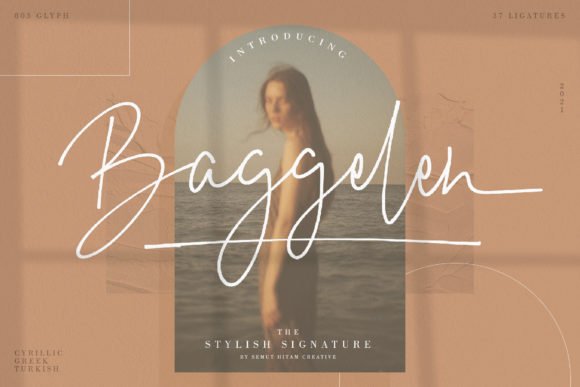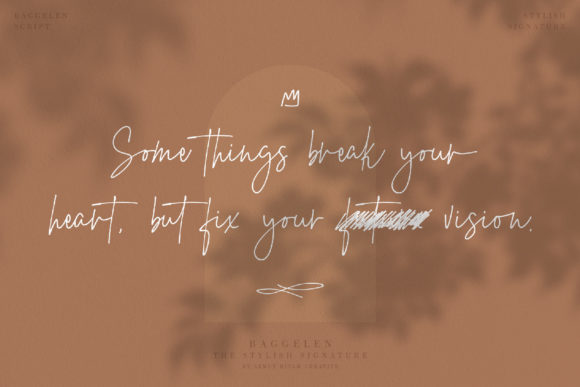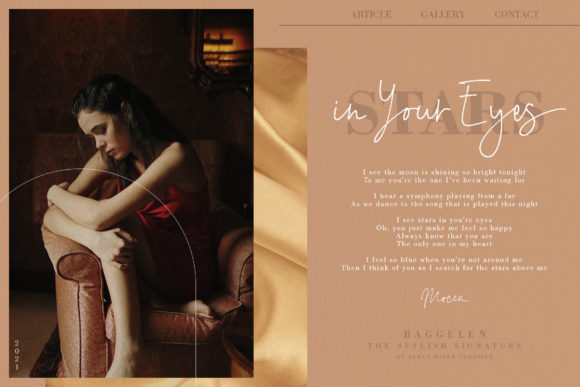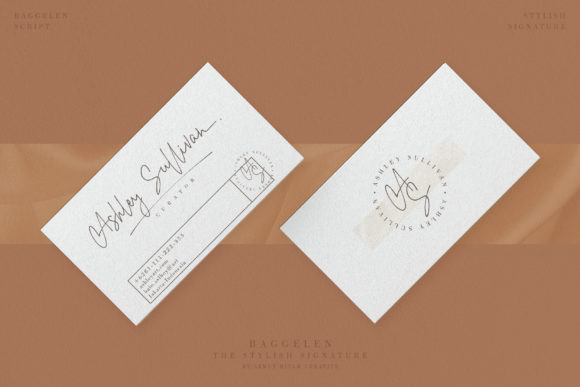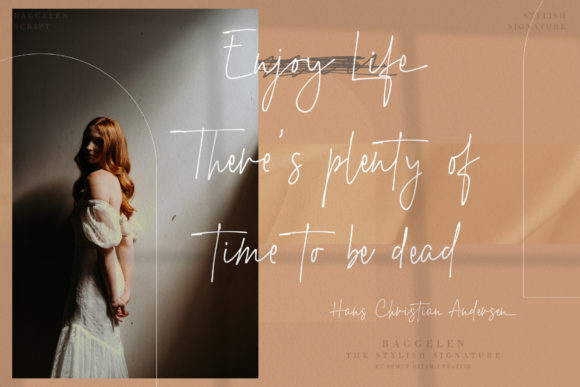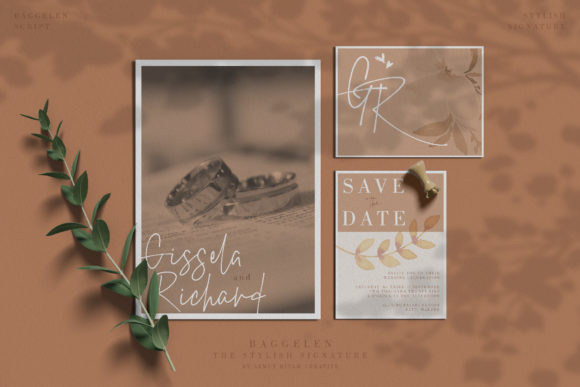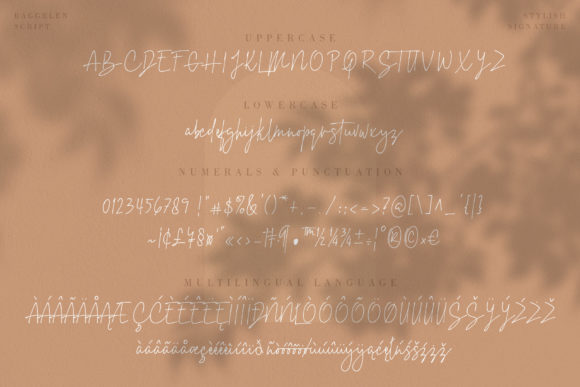
The Perfect Script: Unlocking the Power of Baggelen Font
Have you ever been brainstorming a design project and suddenly, the perfect font pops into your mind? It’s that feeling of excitement and inspiration that drives us to create something truly special. For designers, the search for the perfect font can be a daunting task, but what if we told you we’ve found a game-changer? Enter the Baggelen Font, a stunning script font that’s about to revolutionize your design projects.
Baggelen Font is a thin lettered, fashionable script font that exudes elegance and modernity. Its classy look makes it perfect for logos, branding, invitations, stationery, and even social media posts. Whether you’re working on a wedding design or creating a brand identity, this font is sure to impress. As a designer, you’ll love the versatility and sophistication that Baggelen Font brings to your projects.
Baggelen Font Key Features
- Unique Characteristics: The font features a unique, hand-drawn design with subtle imperfections, giving it a human touch and a distinctive feel.
Baggelen Font Review
Overall, I have mixed feelings about the Baggelen Font. On the one hand, it has its charm and there are some things that I really like.
- The Baggelen Font has a unique, quirky feel to it that can add some personality to a design.
- The font is quite versatile and can be used in a variety of contexts, from body text to headings.
- The font’s curves and rounded edges give it a friendly and approachable feel.
However, there are also some limitations that I think are worth mentioning.
- The Baggelen Font can be a bit too playful and whimsical for more formal or professional designs.
- The font’s irregularities can sometimes make it difficult to read, especially at smaller sizes.
- The font lacks a clear hierarchy, making it challenging to differentiate between headings and body text.
Overall, I think the Baggelen Font is a solid choice for designs that need a bit of personality and flair. However, it may not be the best fit for more formal or professional projects.
Getting the Most Out of Baggelen Font
To get the most out of Baggelen Font, try the following tips:
- Use it for headings and titles to add a touch of elegance and sophistication.
- Pair it with other fonts to create a unique and harmonious typography.